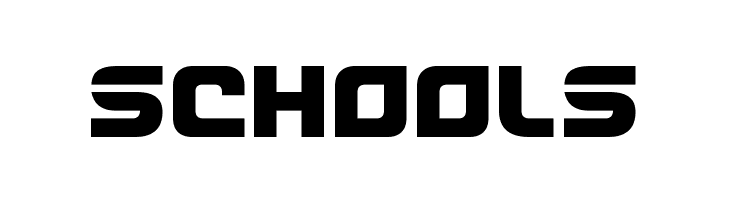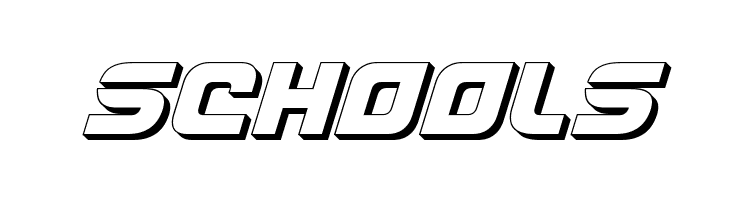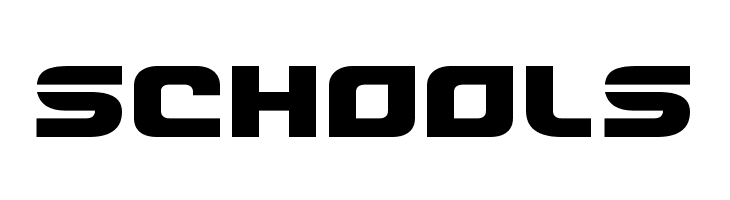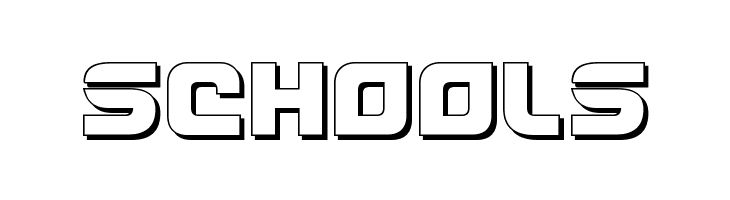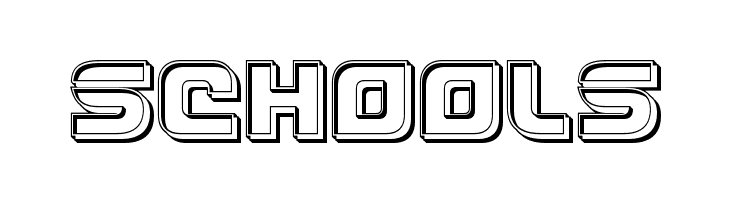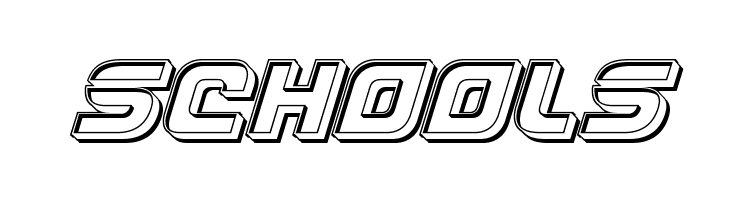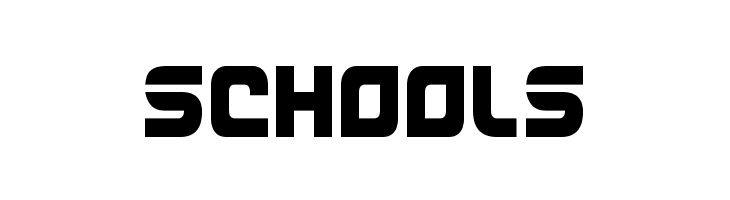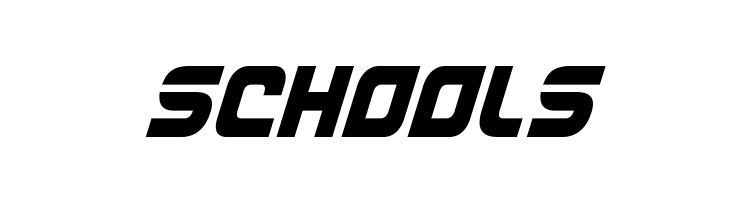
A bold, 3D italic font with a futuristic and dynamic style.
A bold, italicized font with a futuristic and angular design.
A bold, futuristic font with a three-dimensional, striped design.
A bold, futuristic font with a chrome-like, three-dimensional effect and italicized style.
A bold, angular, and condensed italic font with a futuristic design.
A bold, futuristic font with angular, geometric letterforms and an italic slant.
A bold, futuristic font with geometric shapes and horizontal line patterns.
A futuristic, gradient, italic font with dynamic horizontal lines.
A bold, futuristic font with a halftone effect and geometric design.
A bold, futuristic italic font with a halftone effect and geometric shapes.
A bold, angular font with a futuristic, geometric style.
A bold, angular font with a futuristic and geometric design.
A bold, angular, and italicized font with a futuristic design.
A futuristic, geometric font with sharp angles and clean lines.